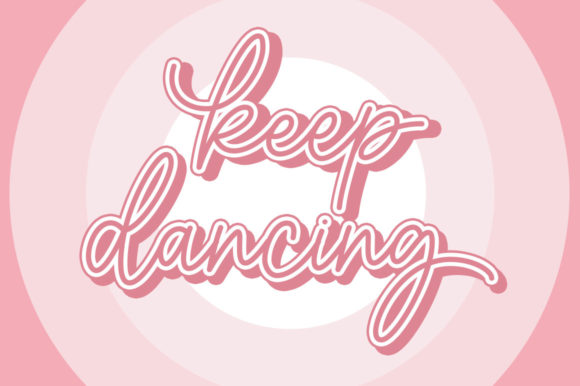
Prepare yourself to be enthralled by Keep Dancing, a calligraphic masterpiece that emanates joy, whimsy, and elegance with each stroke. This captivating script font, crafted with meticulous attention to detail by Graphix Line Studio, possesses an innate ability to transform the ordinary into the extraordinary.
Immerse yourself in the world of Keep Dancing, where imagination knows no bounds, and creativity flourishes. This font's enchanting personality shines through every letter, captivating the eyes and stirring the emotions. Its fluid lines, graceful curves, and playful flourishes evoke a sense of wonder and delight that will leave you spellbound.
Designed with versatility in mind, Keep Dancing effortlessly complements an array of projects, from heartwarming invitations and heartfelt letters to eye-catching branding and vibrant social media posts. Its lively spirit adds a personal touch to logos, posters, and website designs, making them stand out from the crowd.
Step into a world where every word dances with joy, where messages are transformed into works of art. Keep Dancing possesses an uncanny ability to capture the essence of the handwritten word, evoking nostalgia and authenticity. Its charming imperfections, subtle variations, and natural flow create a visual masterpiece that captivates hearts.
With Keep Dancing by your side, ordinary text becomes an extraordinary journey, a symphony of visual delight. Elevate your creative projects to new heights, leaving a lasting impression on your audience. Embrace the magic of Keep Dancing, and let your words dance with joy!